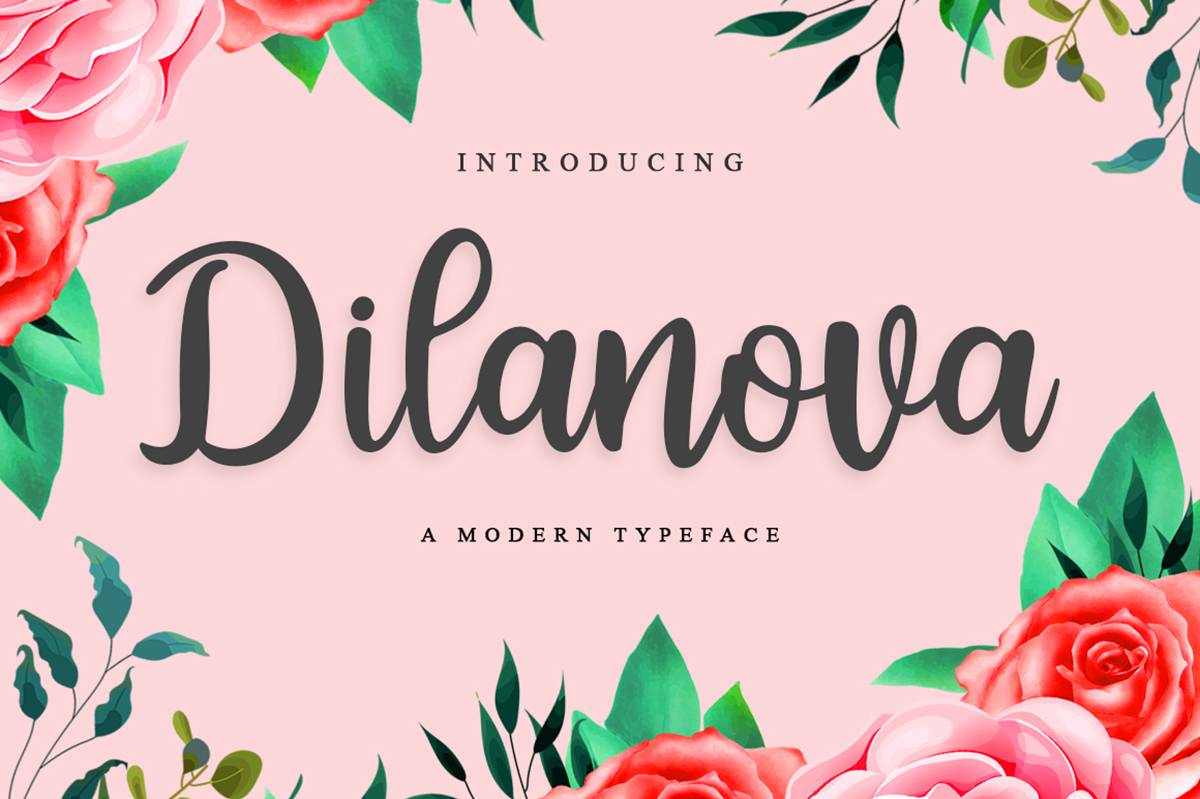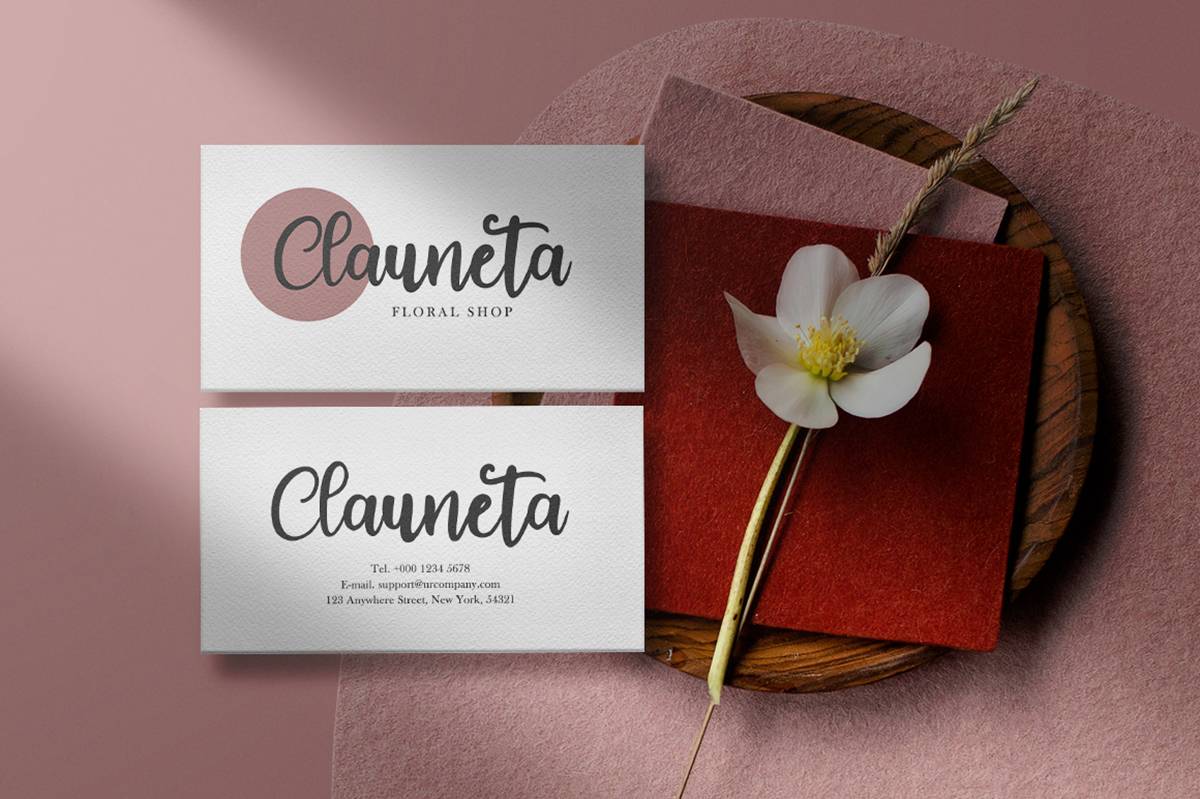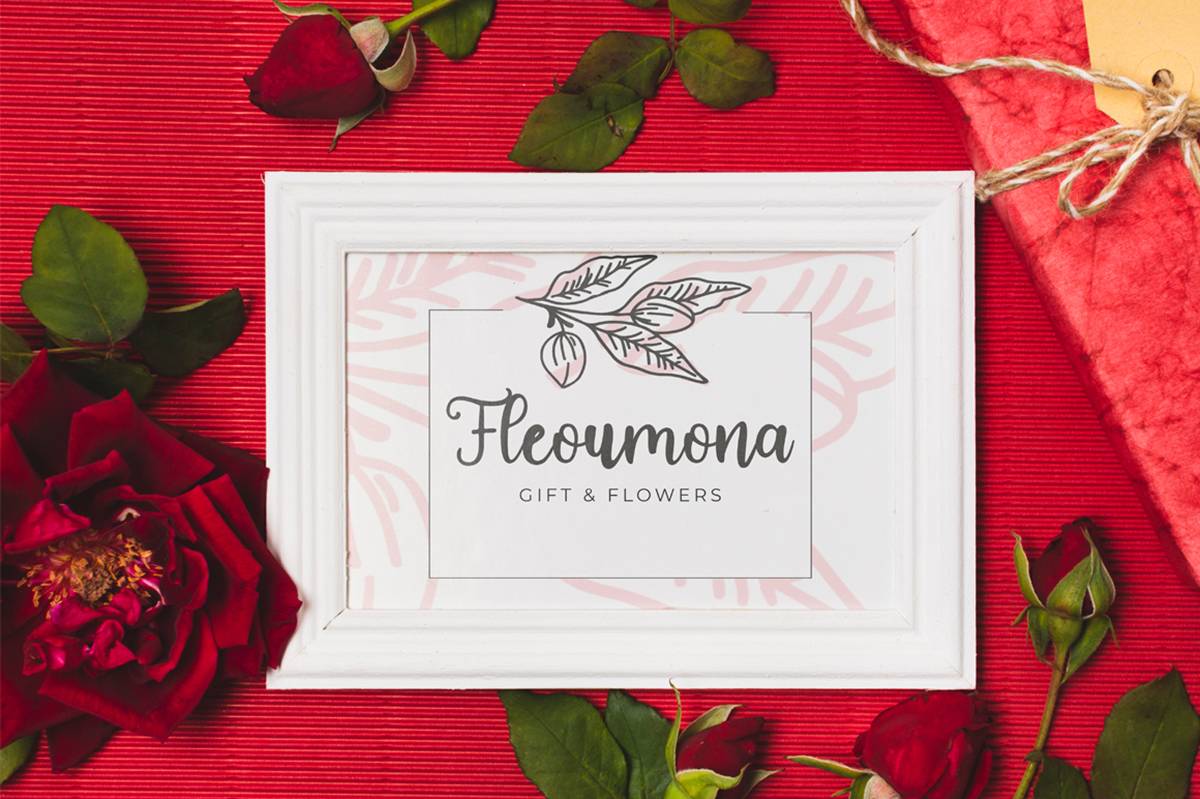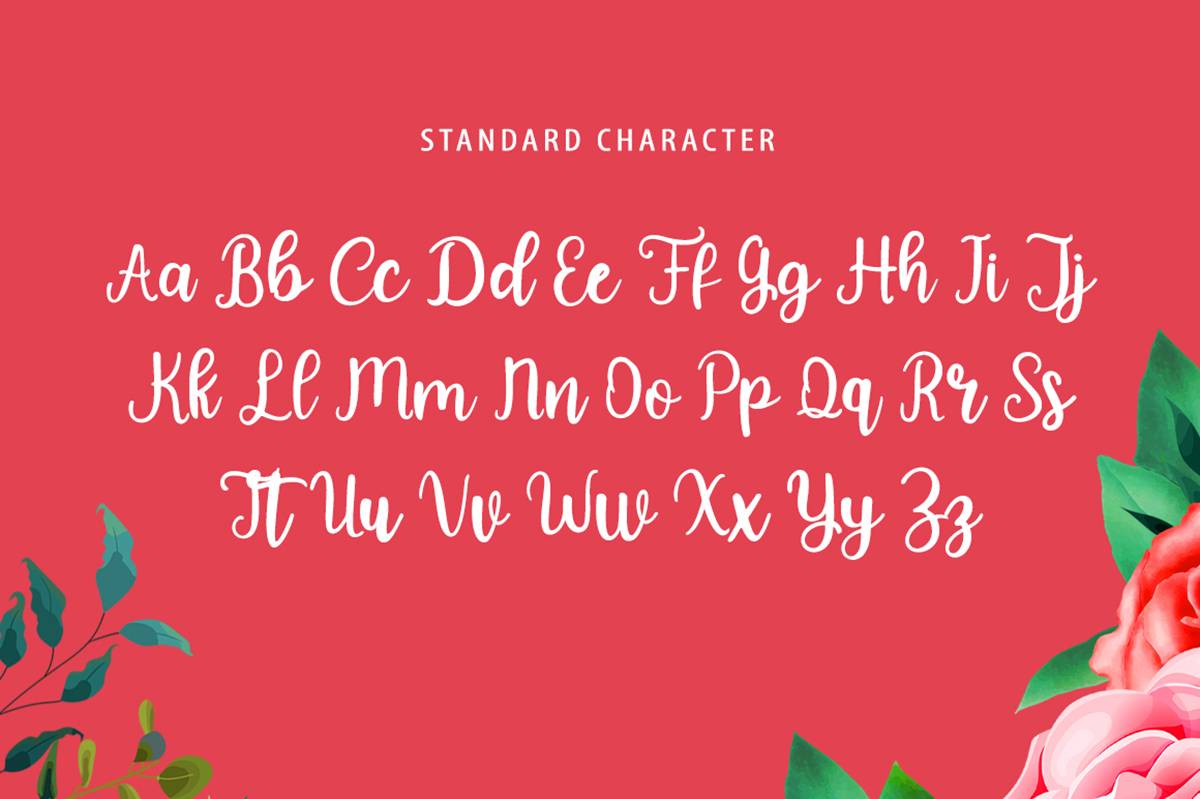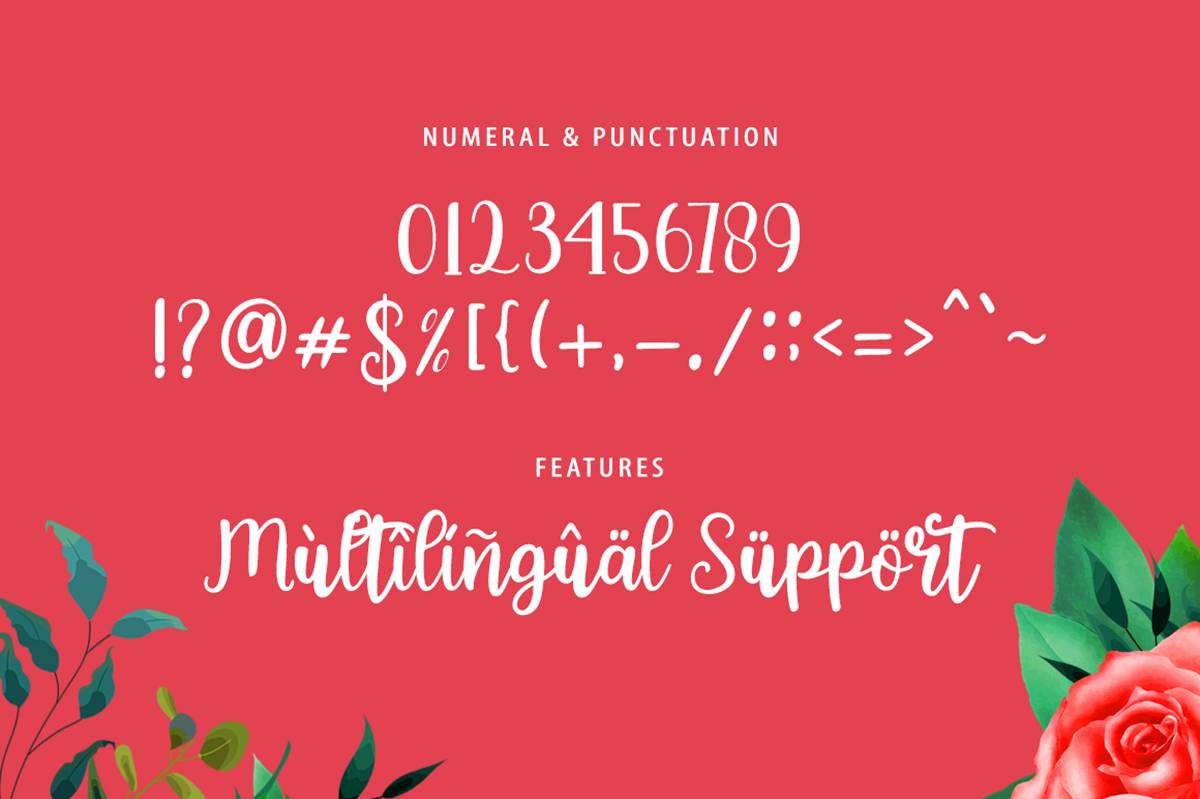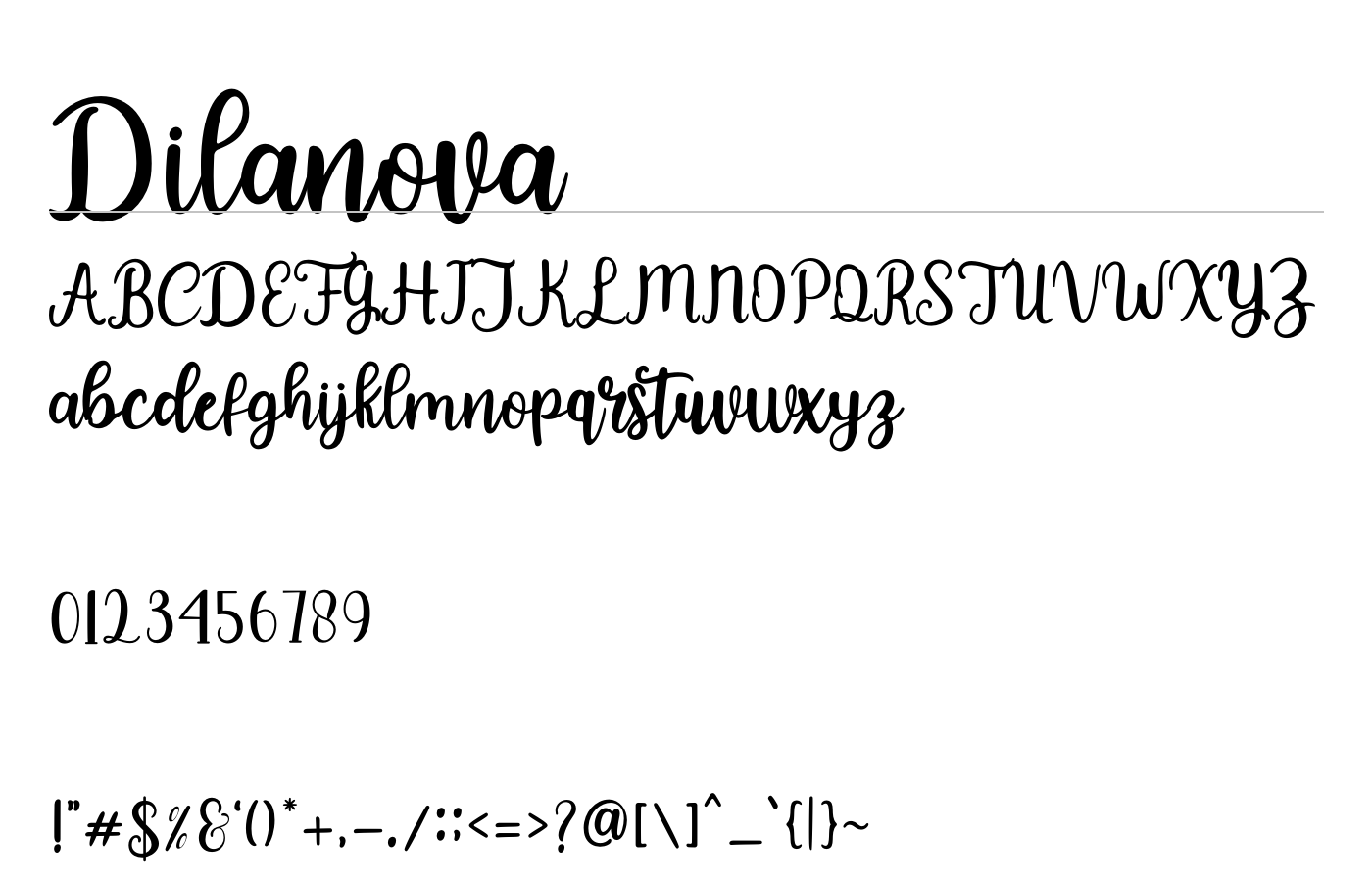
Dilanova Script is a playful and elegant script font featuring smooth, rounded strokes and moderate contrast that lend it a lively yet friendly charm. Its handwritten feel with unique letterforms and a balanced flow makes it ideal for creative branding, invitations, and casual editorial uses where a personal, approachable touch is desired. This font works well in designs that seek to convey warmth and style without sacrificing readability.
Dilanova Script Font